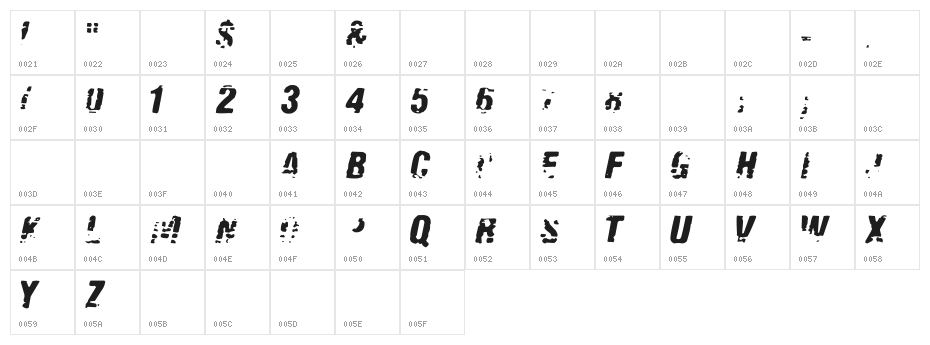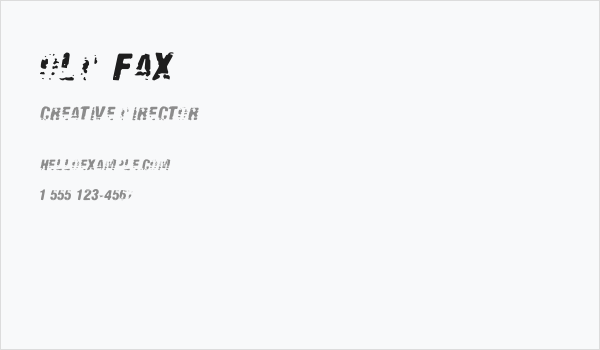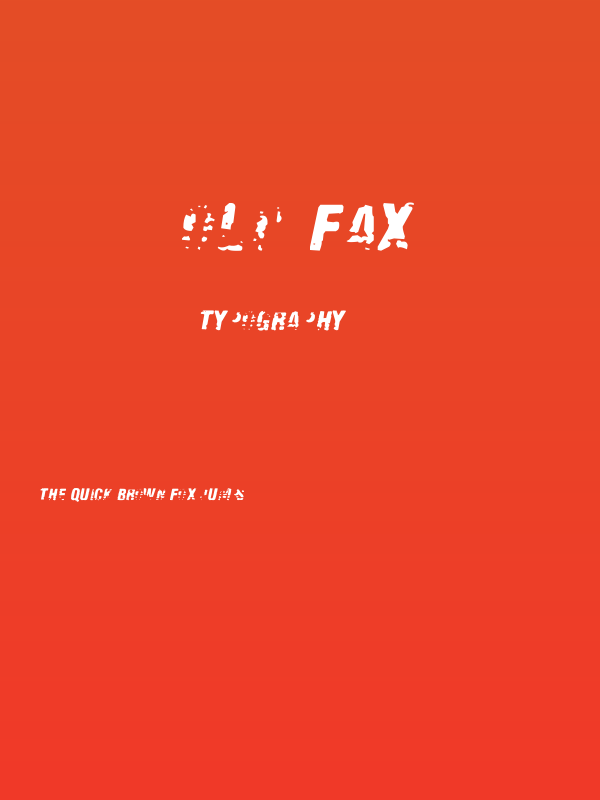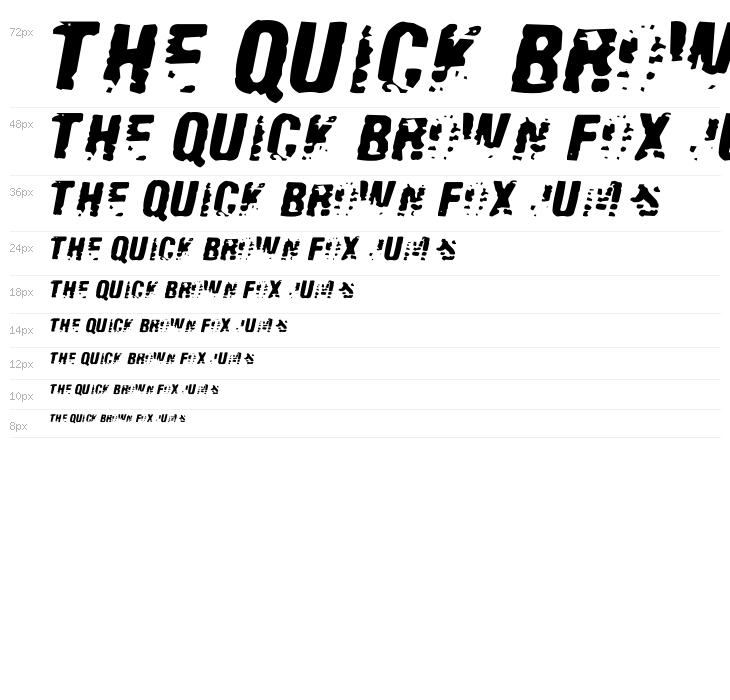
Old Fax Font
| Gesamtstil | Vintage |
| Anwendungsfall | Headlines, Logos, Artistic designs |
| Vorgeschlagene Projekte | Ideal for vintage posters, retro-themed designs, album covers, and branding that requires a rugged, industrial look. |